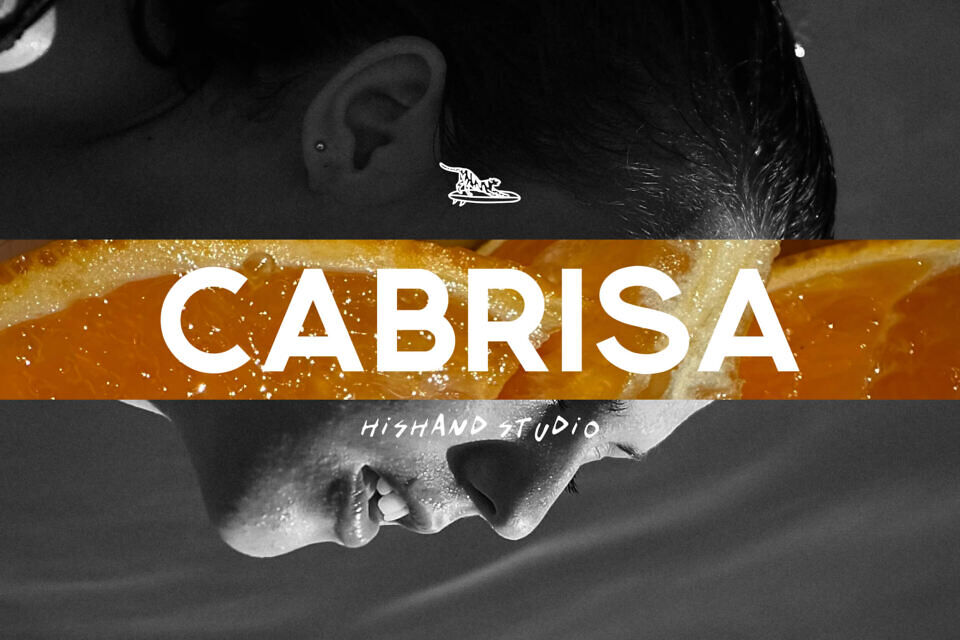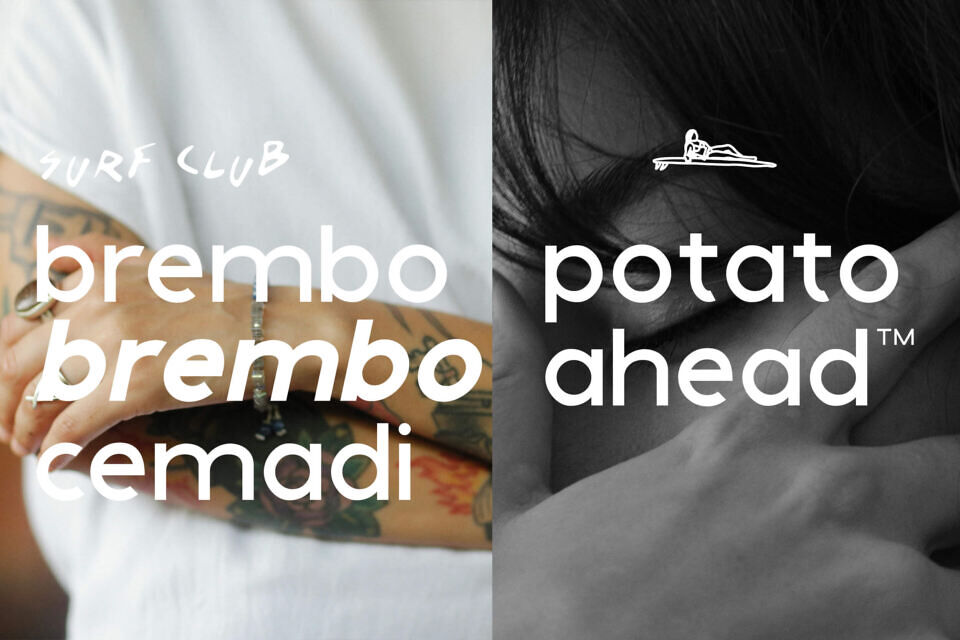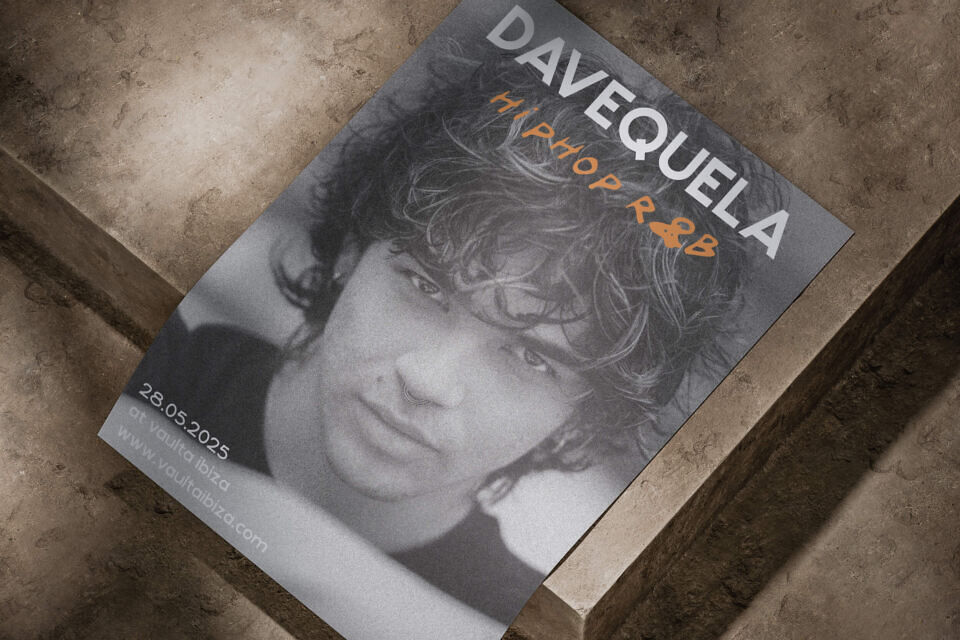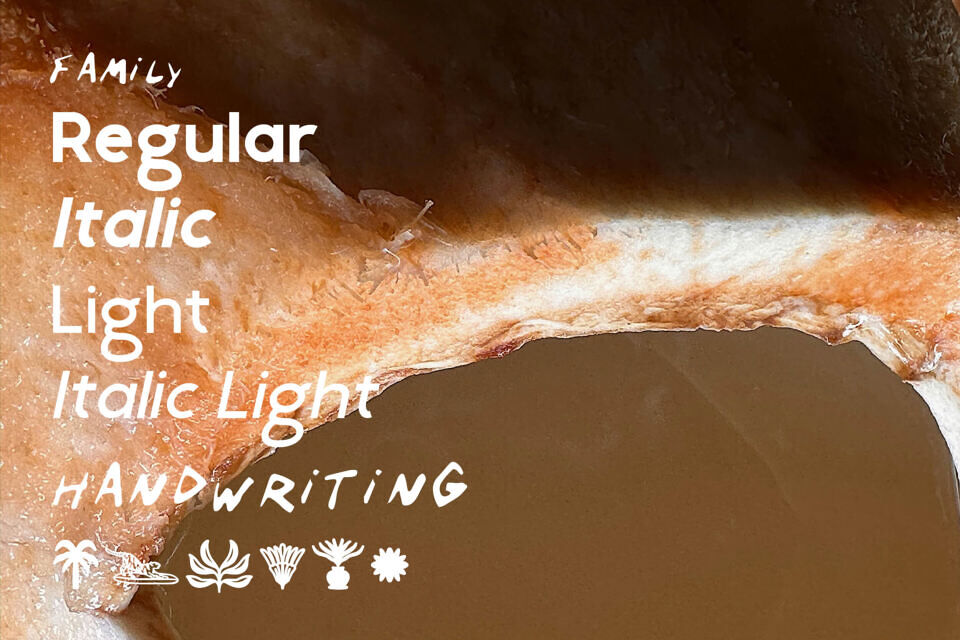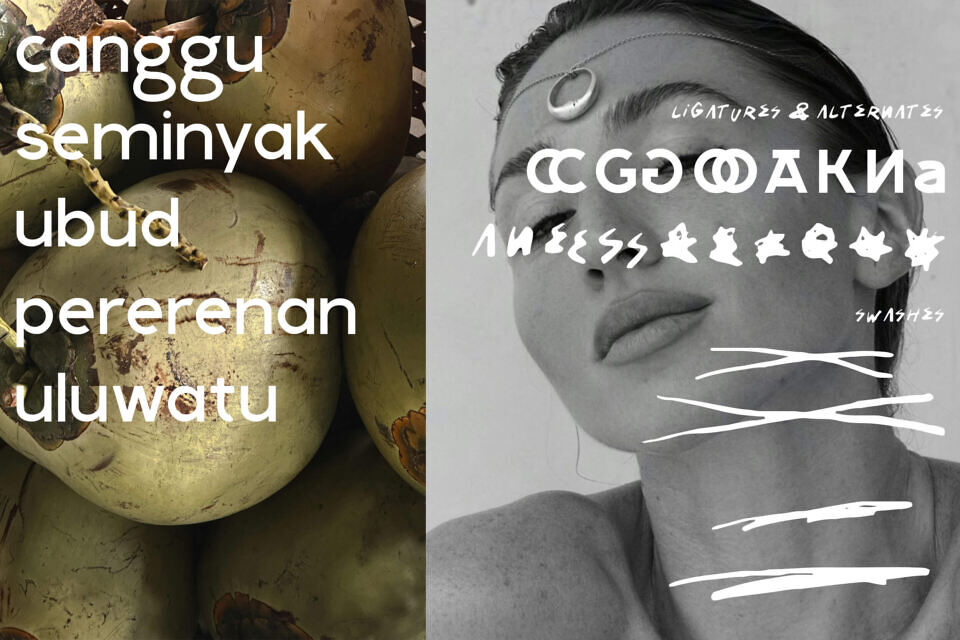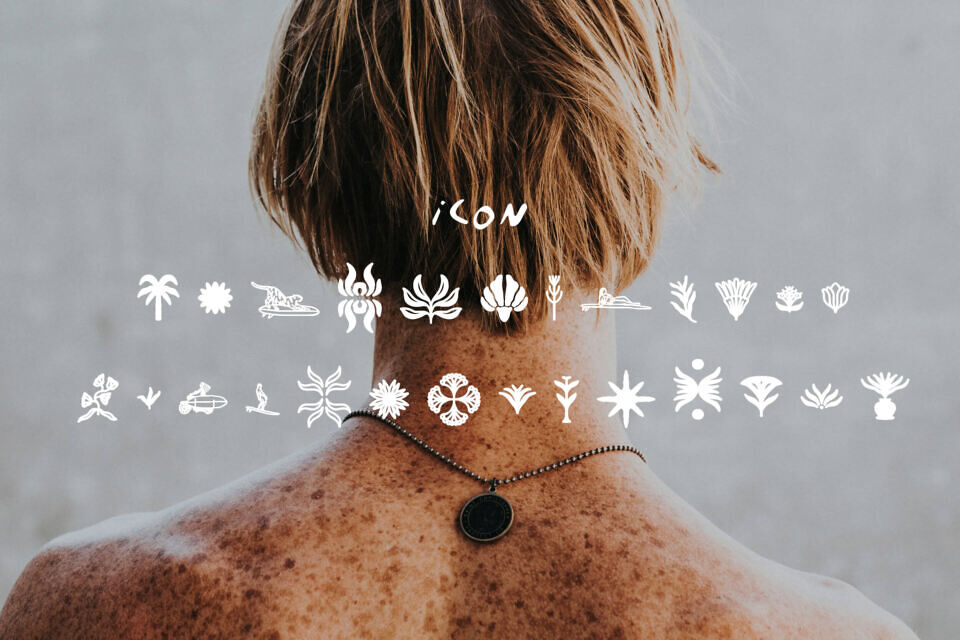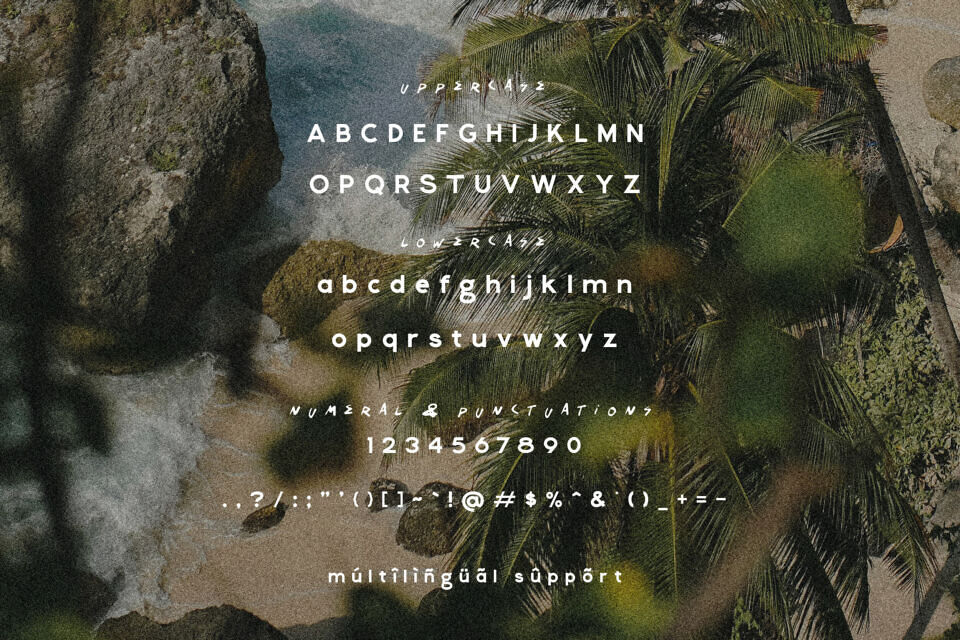
Cabrisa Font
Cabrisa Duo is a stylish font, featuring a clean sans serif and a natural handwritten script. Perfect for modern branding, social media, and editorial use.
It includes 26 aesthetic icons to enhance creative projects with a minimal, elegant touch. Ideal for those seeking balance between structure and personality in design.